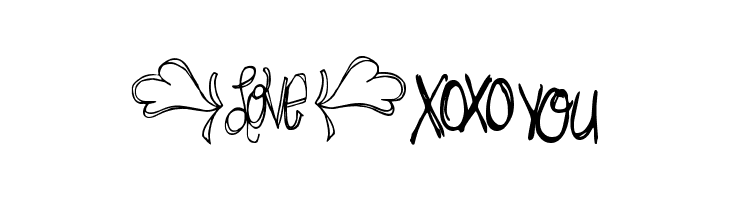
• MTF Colleen Print
A playful, casual handwritten font with fluid strokes.
• MTF Cool Kid
• MTF Cool Kid Fat
A playful, hand-drawn font with rounded, whimsical characters.
• MTF Cool Kid Fat
• MTF Cupcake
A playful, handwritten font with smooth, flowing lines and a whimsical style.
• MTF Cupcake
A playful, handwritten font with smooth, flowing lines and a whimsical style.
• MTF Cutie Patootie
A playful, hand-drawn font with thin, elongated characters and a whimsical style.
• MTF Dear Santa
A playful, hand-drawn font with a festive and cheerful vibe.
• MTF Dear Santa
A playful, hand-drawn font with a festive, cheerful vibe.
• MTF Doodlewhats
A whimsical, hand-drawn font with playful doodle elements.